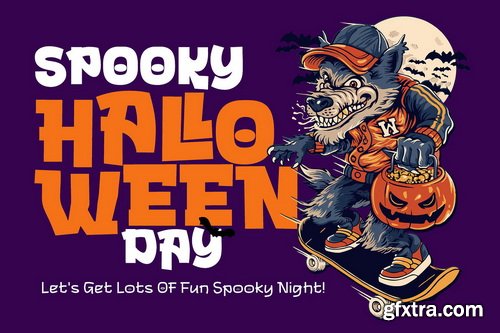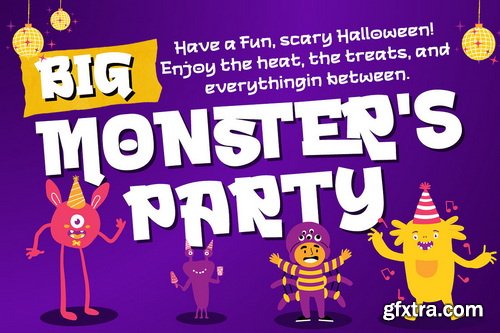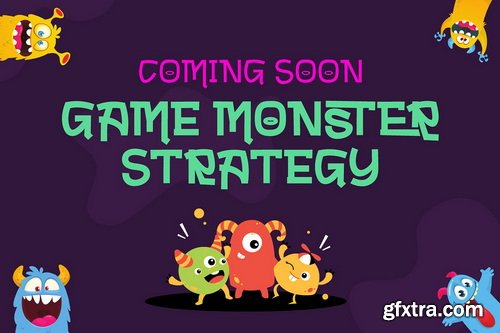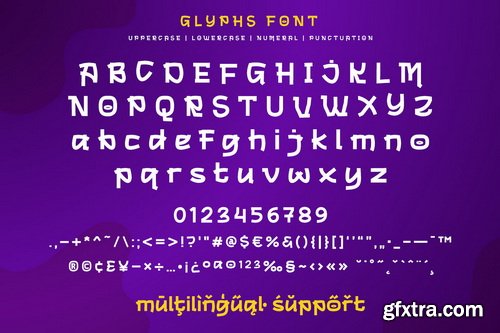
CreativeMarket - Bigmoster Halloween Display Font
- Bigmoster is a fun and cheerful display font designed to capture the playful spirit of childhood. Its rounded shapes and friendly curves make it perfect for kids’ toys, educational products, games, and playful branding. Whether used for packaging, logos, or children’s book covers, Bigmoster instantly brings joy and imagination to every design. This font comes in three styles — Thin, Regular, and Bold, giving designers flexibility to create layered, vibrant typography. The Thin version adds a soft and gentle look, Regular provides balance and readability, while Bold makes your message pop with energy and confidence.